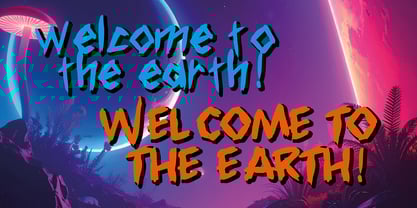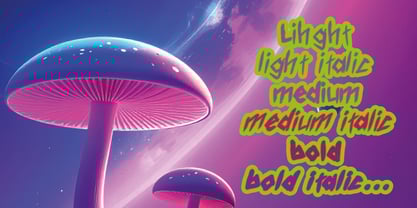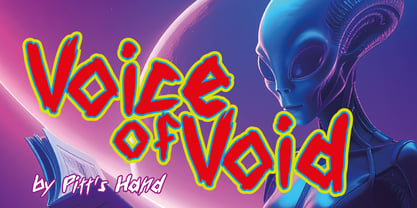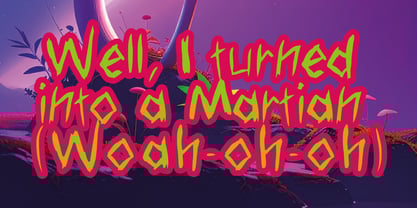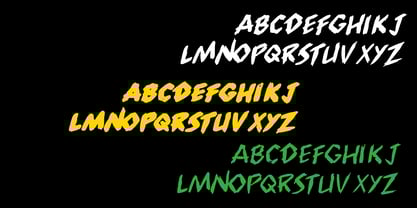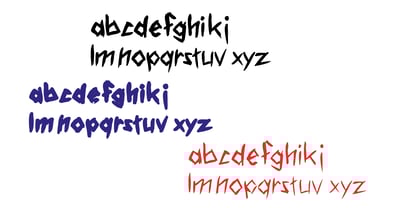
Voice Of Void
by Pitt's Hand
The Voice Of Void Font Family was designed by Pietro Rotelli and published by Pitt's Hand. Voice Of Void contains 6 styles and family package options. More about this family
Voice of Void is a striking font designed for those who wish to evoke a sense of disturbance. This shaky and uncertain sans serif features erratic jumps and unconventional dimensions, making it ideal for horror covers, as well as themes related to bestial or ancestral references. It captures the essence of aliens from deep space and the chaotic vibe of acid parties by the sea. This font serves as a trembling, unsettling voice in the night, boldly declaring its intent and leaving a lasting impression.
Designers: Pietro Rotelli
Foundry: Pitt's Hand